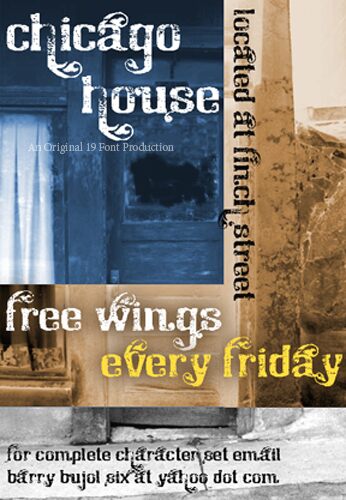
Chicago House by The Original 19 is a free eroded display font built from sturdy serifs and sweeping curls. Its chipped surfaces and uneven edges make the lettering look hand-printed, with ornament that feels theatrical rather than delicate.
As an illustrated emblem, the font can shape music posters, craft drink packaging, and event merchandise with the grit of an old tavern sign. The curling strokes also suit haunted attractions and burlesque signage. In editorial design, it can turn a magazine feature opener into part of the artwork, linking the title to distressed borders or ink textures.